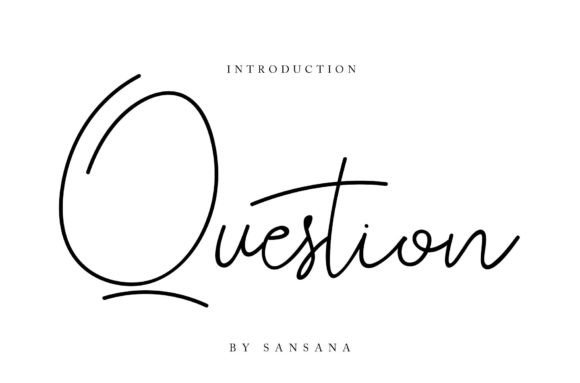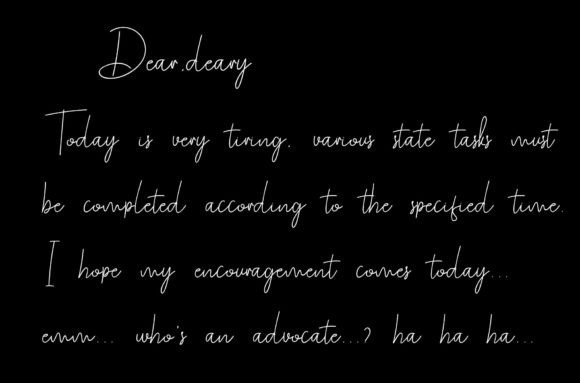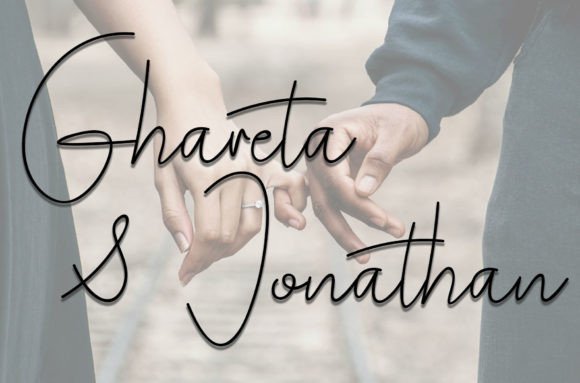
About Question Font
**Question Font: Delicate Elegance and Flowing Beauty for Creative Projects**
Introducing Question, a delicate, elegant, and flowing handwritten font that brings a touch of beauty and sophistication to your creative endeavors. This font is crafted with meticulous attention to detail, resulting in well-balanced characters that elevate a wide range of design projects. Here’s why Question stands out:
**Delicate Elegance:** Question exudes delicate elegance, making it a perfect choice for projects that require a refined and sophisticated touch.
**Flowing Beauty:** The font’s flowing beauty adds a sense of grace and fluidity to your text, enhancing its visual appeal.
**Well-Balanced Characters:** Question features beautifully crafted and well-balanced characters, ensuring harmonious typography that catches the eye.
**Versatile Application:** This font is highly versatile and suits a wide pool of designs, from branding and invitations to posters, social media content, and more.
**Creative Enhancement:** Incorporate Question into your most creative ideas and watch as it transforms them, bringing a sense of life and vitality to your projects.
**Visual Harmony:** Question’s elegant and flowing style creates visual harmony within your designs, making them more captivating and pleasing to the eye.
**Clear and Readable:** Despite its intricate details, Question maintains clarity and readability, ensuring that your messages are easily understood.
**Professional Aesthetics:** The font lends a professional and polished appearance to your projects, making them look well-crafted and sophisticated.
**Artistic Expression:** Use Question to add an artistic touch to your typography, infusing your designs with creativity and flair.
**Unique Identity:** Incorporating Question into your projects gives them a unique identity, making them stand out and leave a lasting impression.
**Attention-Grabbing:** The font’s delicate elegance and flowing beauty make your text attention-grabbing, ensuring that your designs capture viewers’ interest.
**Refined Craftsmanship:** Question showcases refined craftsmanship, with each character meticulously designed to perfection.
**Design Excellence:** Expect design excellence when you use Question, as it offers a font style that is both visually pleasing and impactful.
**Personalized Charm:** Question adds personalized charm to your projects, making them relatable and engaging to your audience.
**Spectacular Results:** Question enhances the aesthetics and visual appeal of your designs, resulting in spectacular results that leave a mark.
**Inspirational:** Let Question inspire your creative process, allowing you to explore different design possibilities while maintaining an elegant and flowing aesthetic.
**Classic Appeal:** With its timeless elegance, Question boasts classic appeal, making it suitable for design themes that celebrate traditional styles.
**Enduring Beauty:** Question’s enduring beauty ensures that your designs continue to captivate and inspire over time.
**Distinctive Beauty:** Question’s distinctive beauty sets it apart as a font that brings a touch of sophistication to your projects.
**Intricate Details:** Discover the intricate details within each character of Question, adding depth and interest to your typography.
With Question, you have a font that combines delicate elegance with flowing beauty, offering a versatile and visually appealing choice for your creative projects. Whether it’s branding, invitations, social media content, or any design that requires a touch of refinement, Question elevates your work with grace and style.